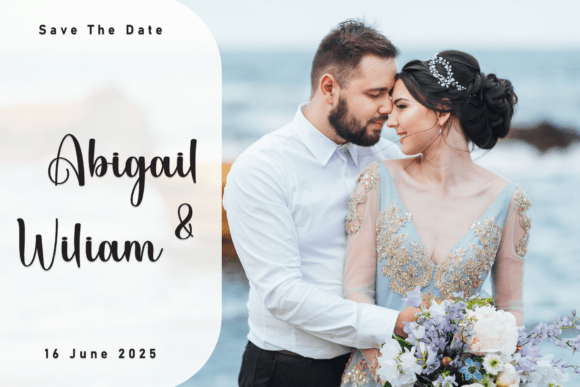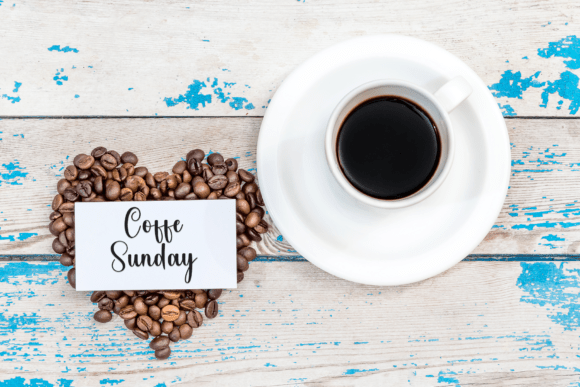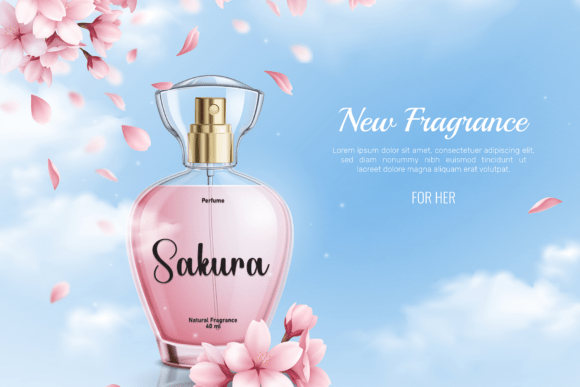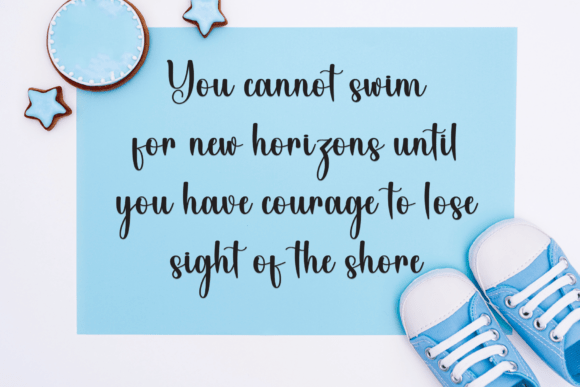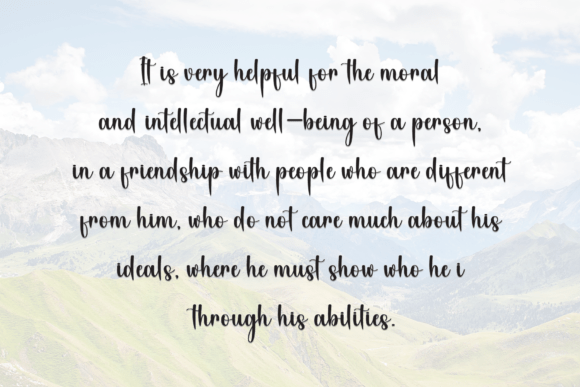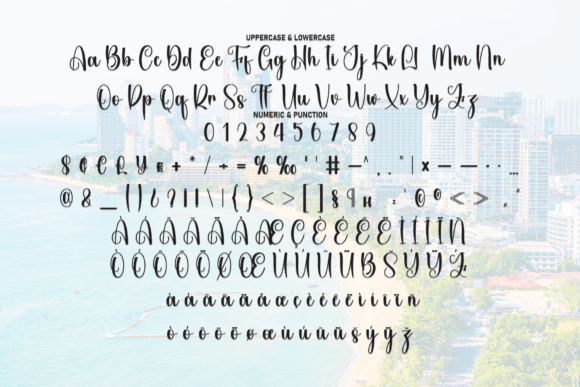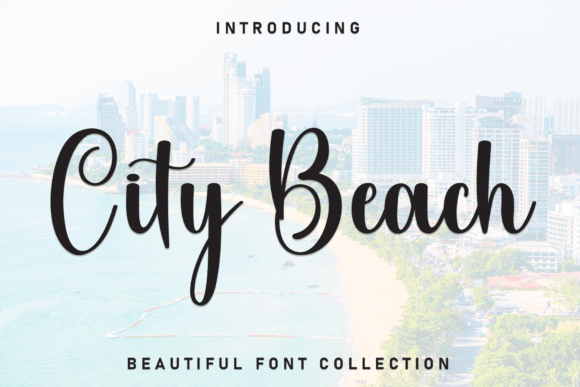
Introducing City Beach Font: Elevate Your Designs with Artistic Flair and Contemporary Elegance
In the world of typography, a well-crafted font can elevate a design from ordinary to extraordinary. For designers and crafters seeking a stylish and sophisticated touch, City Beach Font is an exceptional choice. This stunning script font embodies the perfect blend of artistic flair and contemporary elegance, making it an ideal addition to any design project.
The Essence of City Beach Font
City Beach Font is a masterpiece of modern calligraphy, characterized by fluid brush strokes, dynamic curves, and expressive letterforms. Its unique design captures the essence of hand-painted calligraphy with a modern twist, resulting in a font that exudes creativity and sophistication. Each letter is carefully crafted to convey a sense of movement and fluidity, giving the font a natural flow that is both visually striking and engaging.
Key Features of City Beach Font
• Fluid Brush Strokes: City Beach Font features smooth, fluid brush strokes that give it a hand-painted feel. This characteristic makes it perfect for designs that require a personal touch, such as invitations, packaging, and social media graphics.
• Dynamic Curves: The font’s dynamic curves add a sense of movement and energy to any design. This feature makes City Beach Font ideal for logos, titles, and headings that require a touch of elegance and sophistication.
• Expressive Letterforms: Each letter in City Beach Font is carefully crafted to convey a sense of personality and flair. The expressive letterforms make the font perfect for designs that require a creative and artistic touch.
City Beach Font is an incredibly versatile font that can be used in a wide range of design projects. Its unique blend of artistic flair and contemporary elegance makes it perfect for:
• Logos: Create a lasting impression with a logo that exudes creativity and sophistication. City Beach Font is ideal for businesses that require a unique and artistic brand identity.
• Invitations: Add a touch of elegance and sophistication to your invitations with City Beach Font. Its fluid brush strokes and dynamic curves make it perfect for weddings, parties, and other special events.
• Packaging: Stand out in a crowded market with packaging that features City Beach Font. Its creative and artistic touch makes it perfect for product labels, packaging, and branding materials.
• Social Media Graphics: Elevate your social media presence with graphics that feature City Beach Font. Its modern and sophisticated design makes it perfect for social media posts, stories, and ads.
Why Choose City Beach Font?
With so many fonts available, why choose City Beach Font? Here are just a few reasons why designers and crafters love this exceptional font:
• Unique and Artistic: City Beach Font is a one-of-a-kind font that adds a creative and artistic touch to any design.
• Versatile: Its versatility makes it perfect for a wide range of design projects, from logos and invitations to packaging and social media graphics.
• Easy to Read: Despite its artistic and creative design, City Beach Font is easy to read and understand, making it perfect for designs that require a clear and concise message.
• High-Quality: City Beach Font is a high-quality font that is designed to deliver exceptional results in any design project.
In conclusion, City Beach Font is an exceptional script font that embodies the perfect blend of artistic flair and contemporary elegance. Its fluid brush strokes, dynamic curves, and expressive letterforms make it perfect for designers and crafters seeking a creative and sophisticated touch. With its versatility, ease of use, and high-quality design, City Beach Font is an excellent addition to any design project. Whether you’re creating a logo, invitation, packaging, or social media graphics, City Beach Font is sure to deliver both visual impact and versatility.